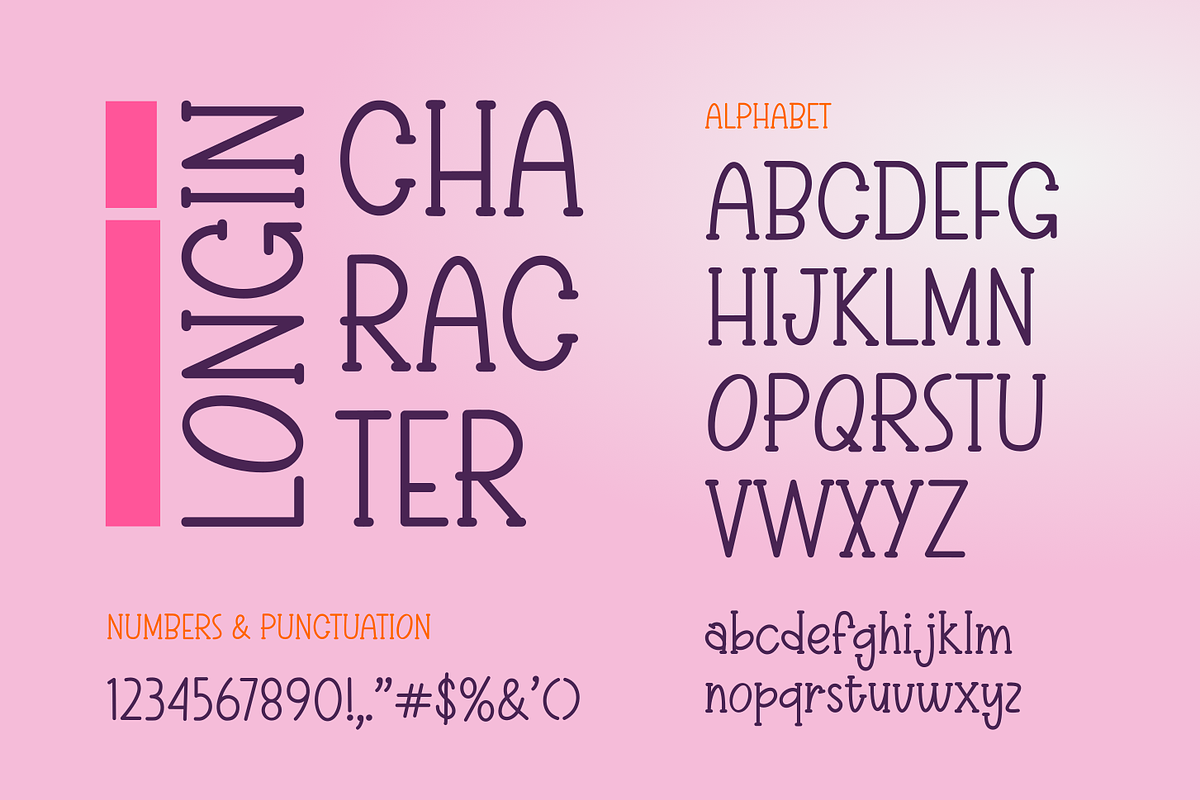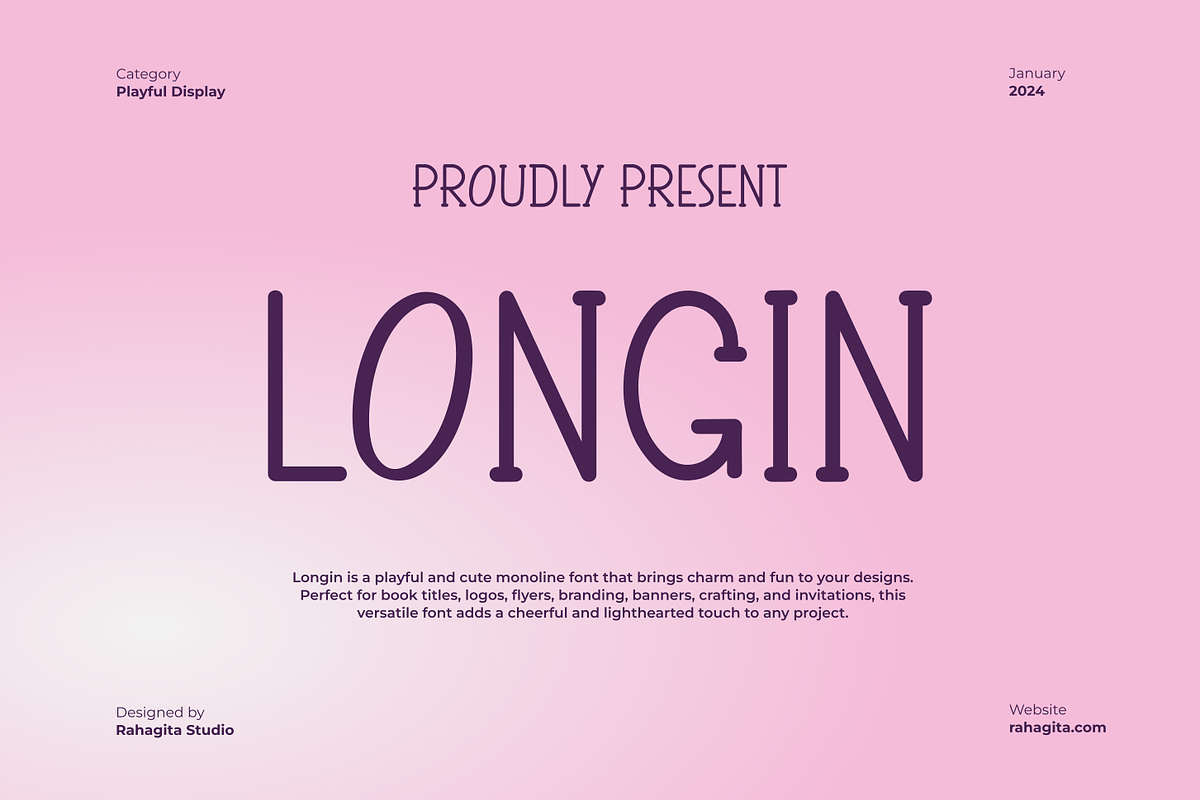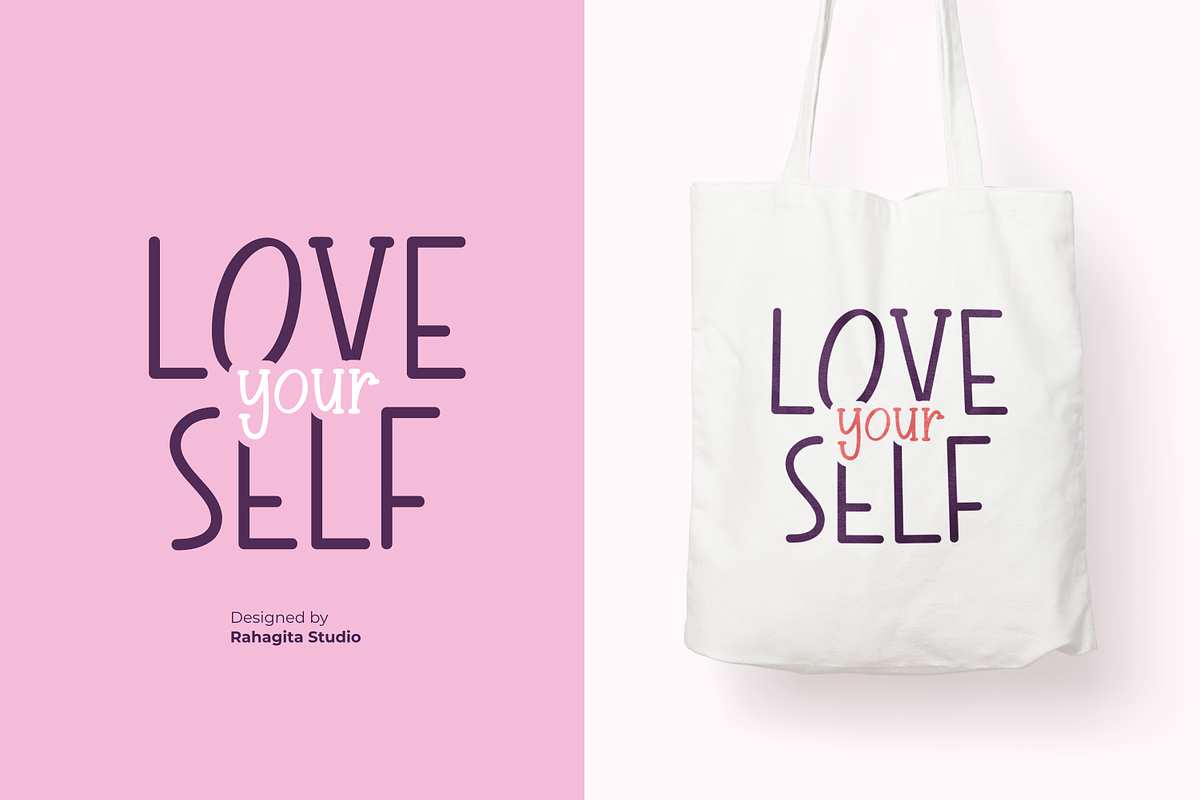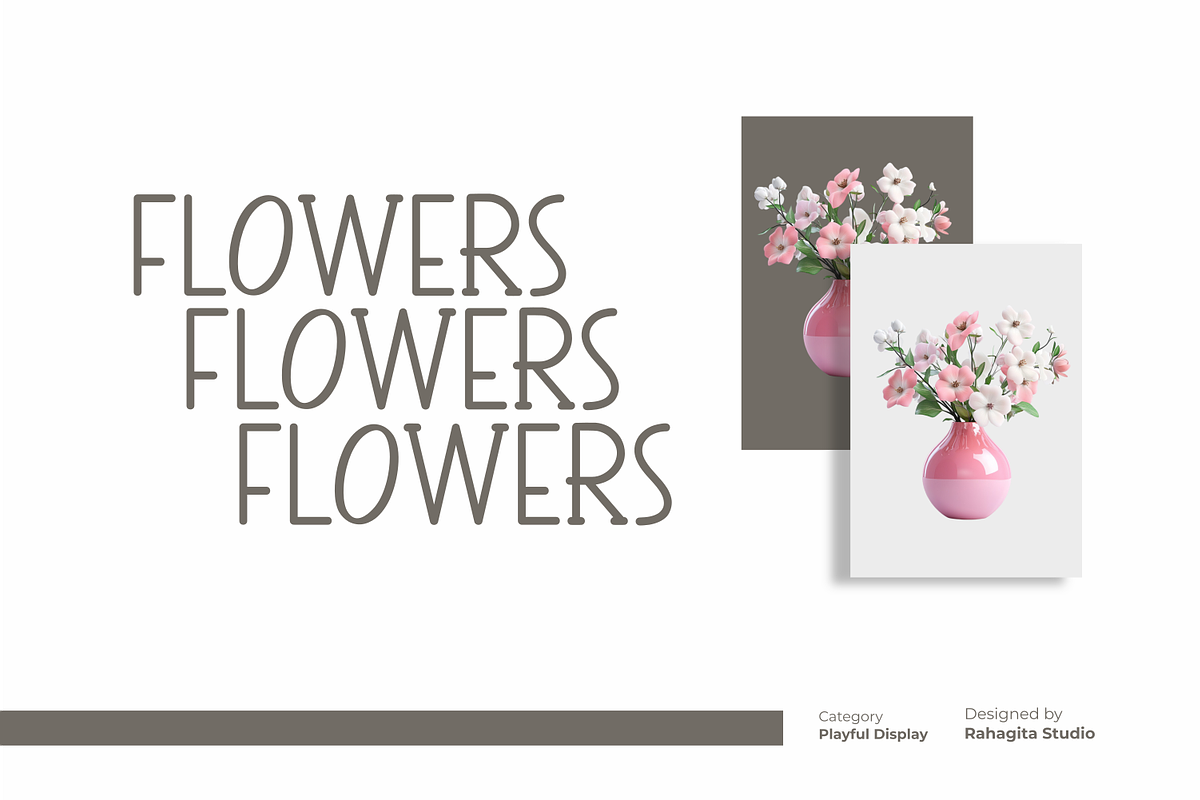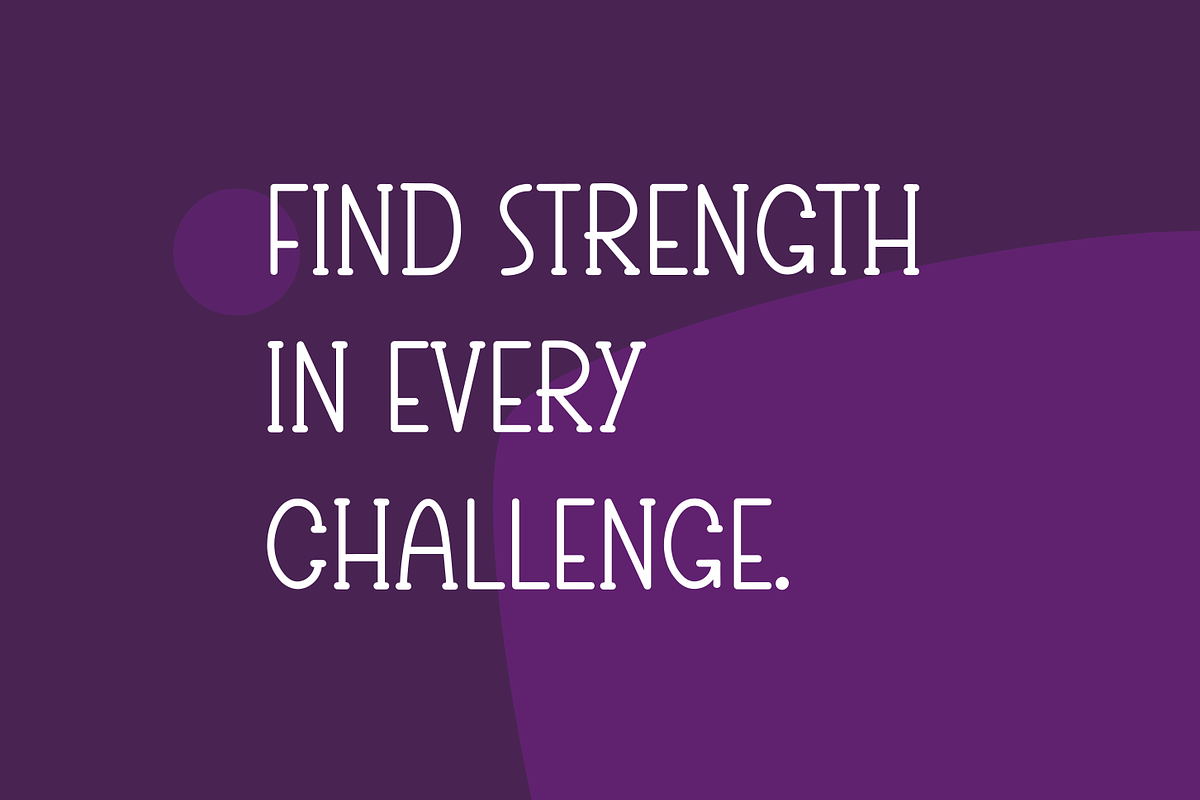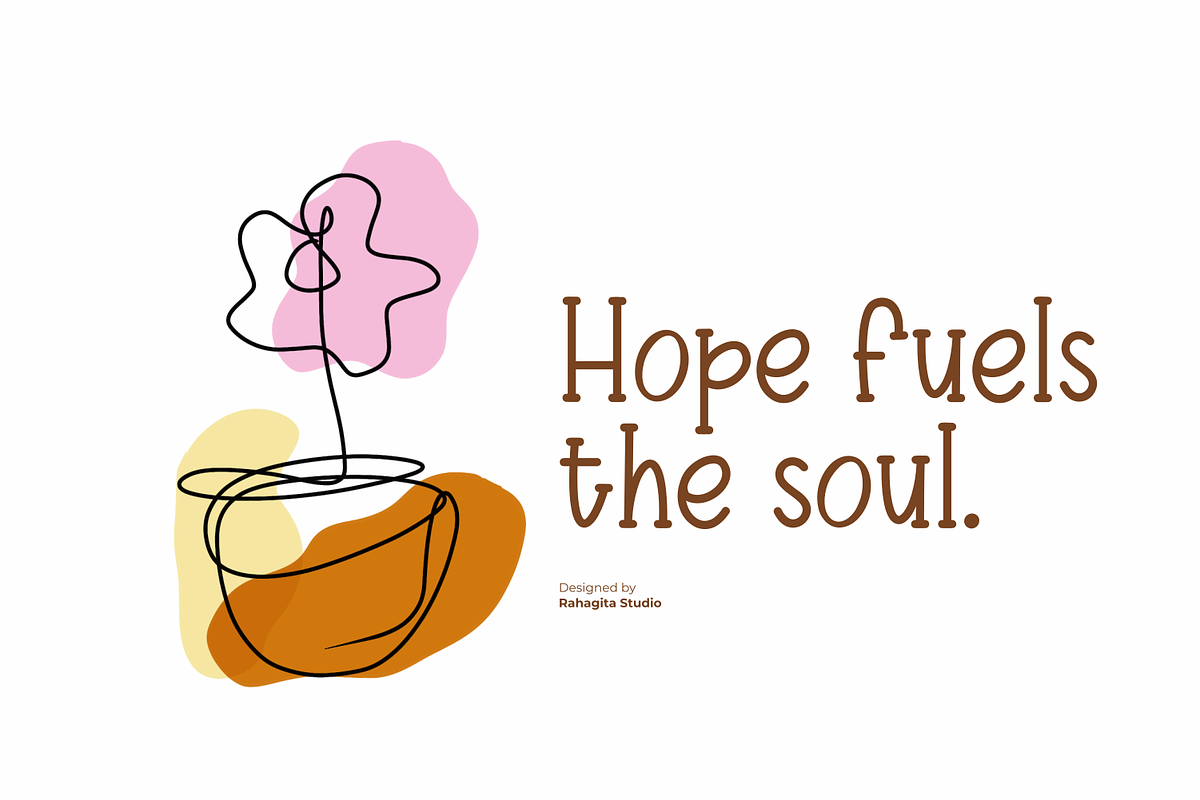
Longin
Longin is a charming and playful monoline font designed to bring joy and creativity to your projects. Its cute and versatile style makes it perfect for book titles, logos, flyers, branding, banners, crafting, invitations, and so much more. Longin’s clean yet whimsical aesthetic ensures it stands out, making it a great choice for both personal and professional design endeavors.